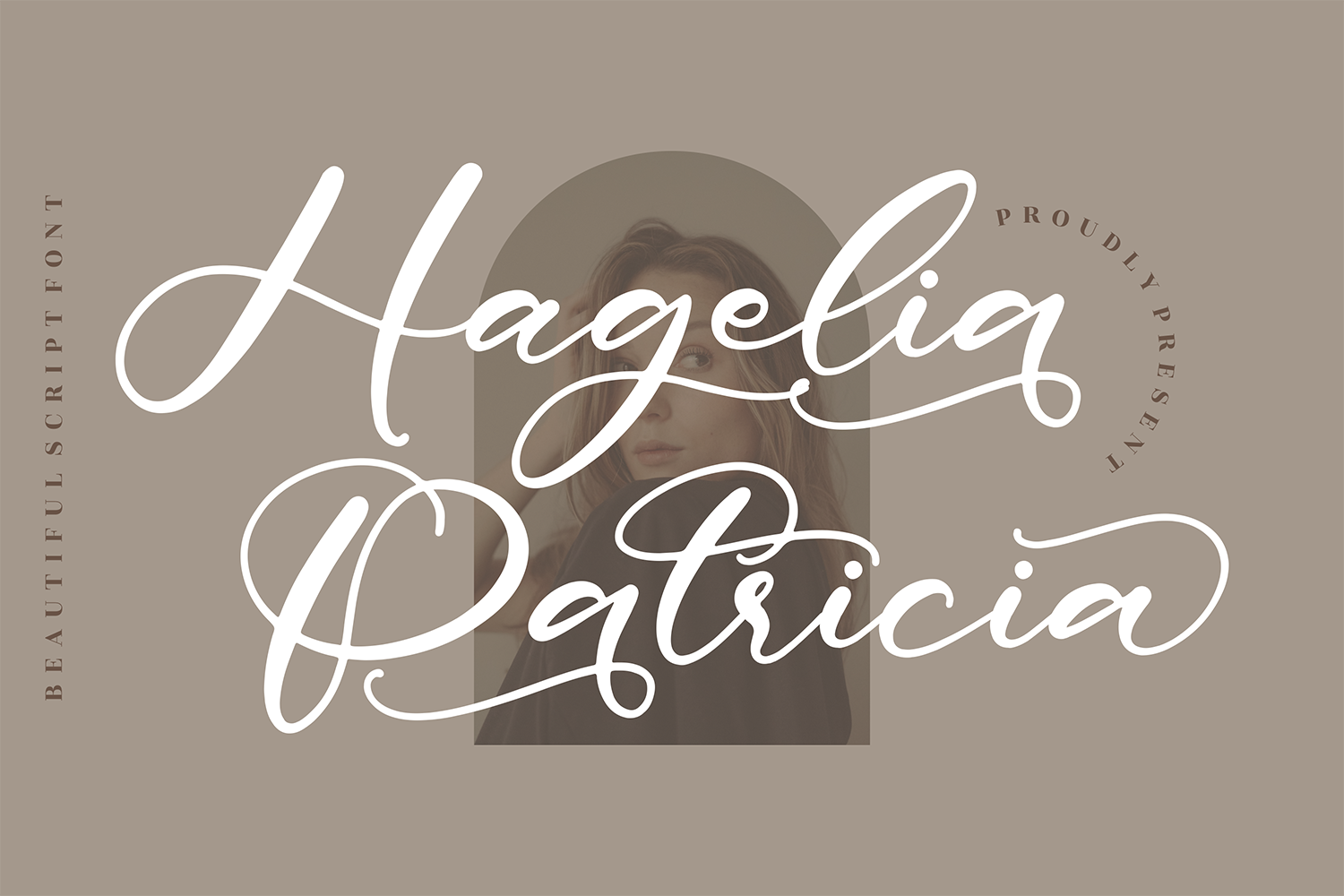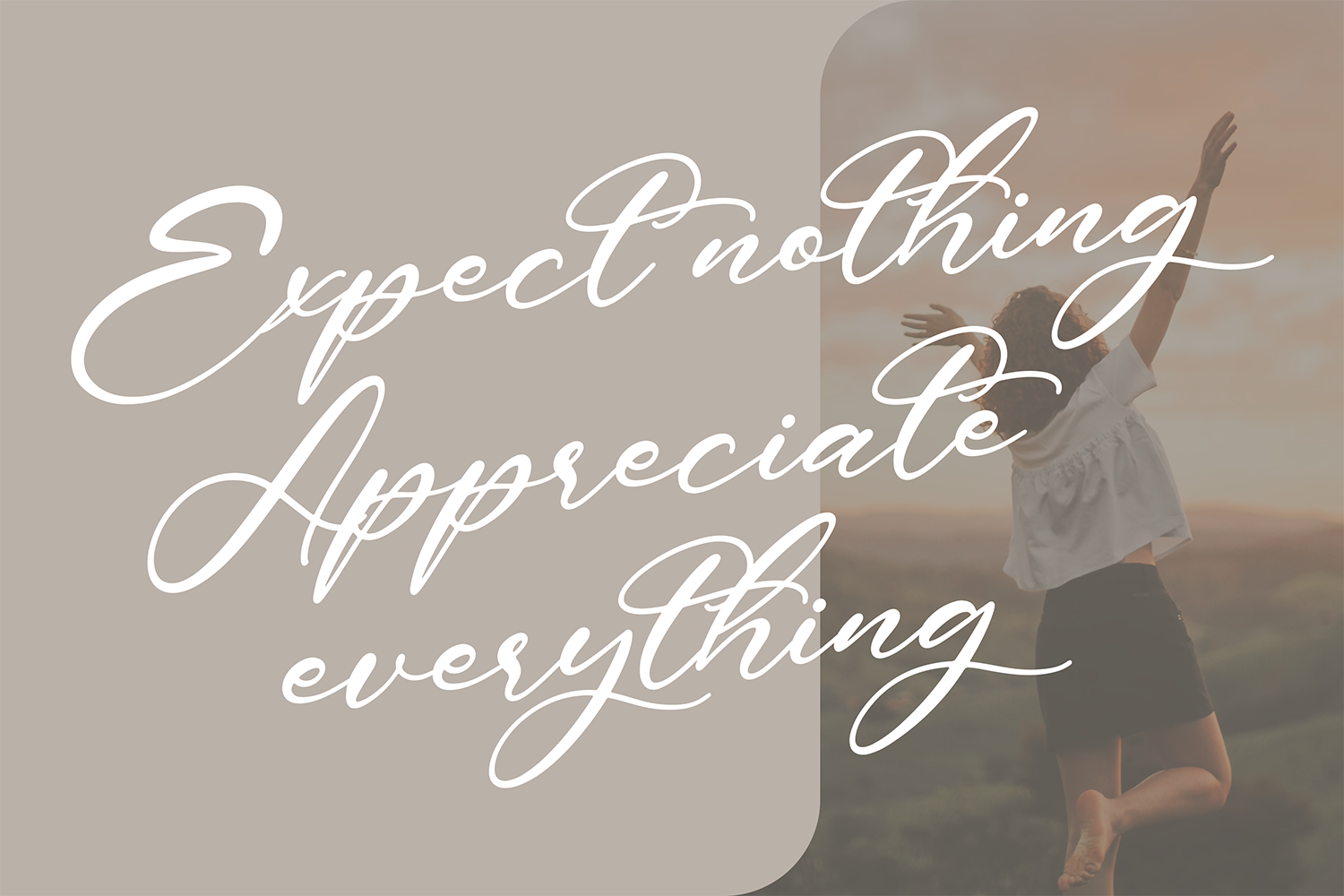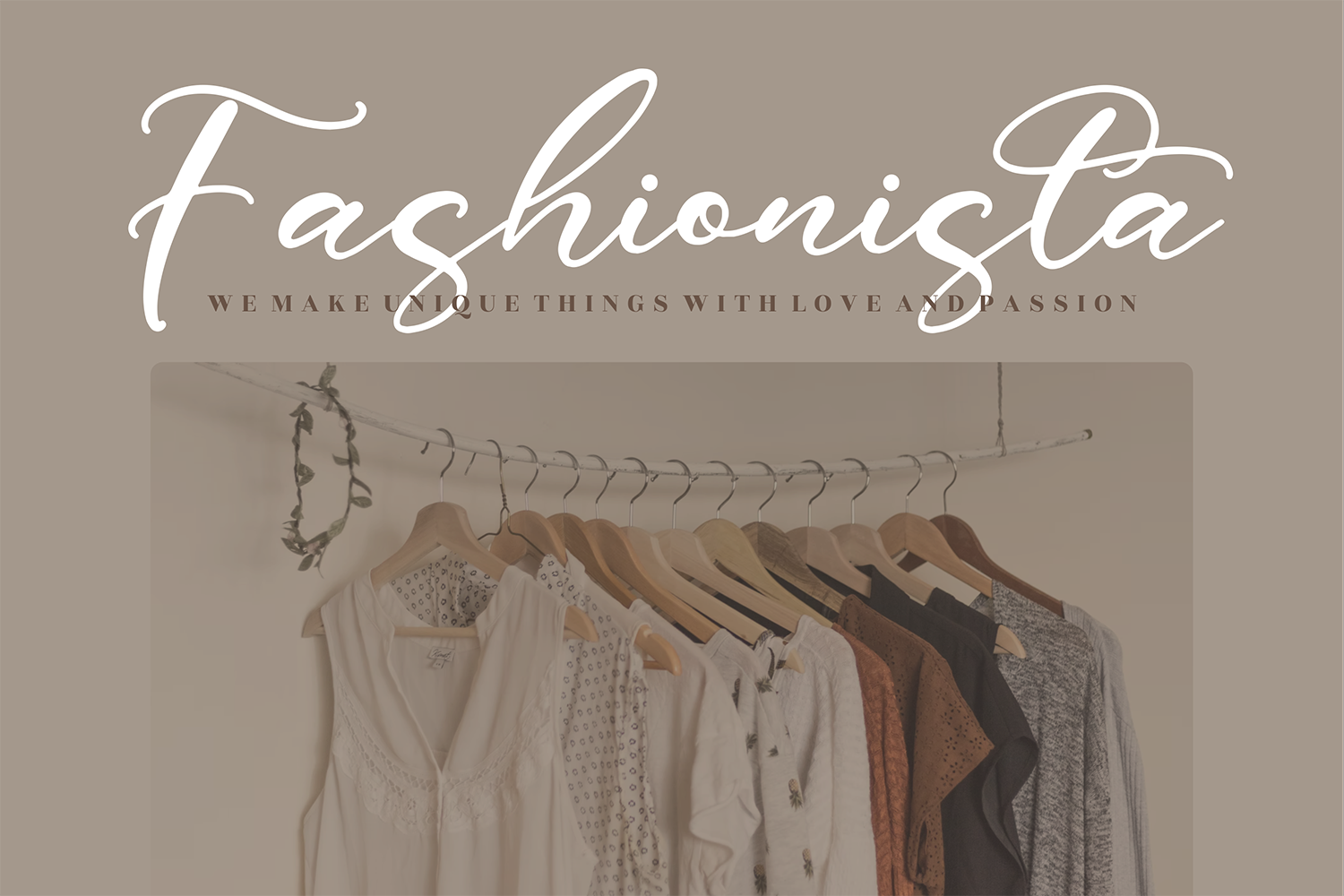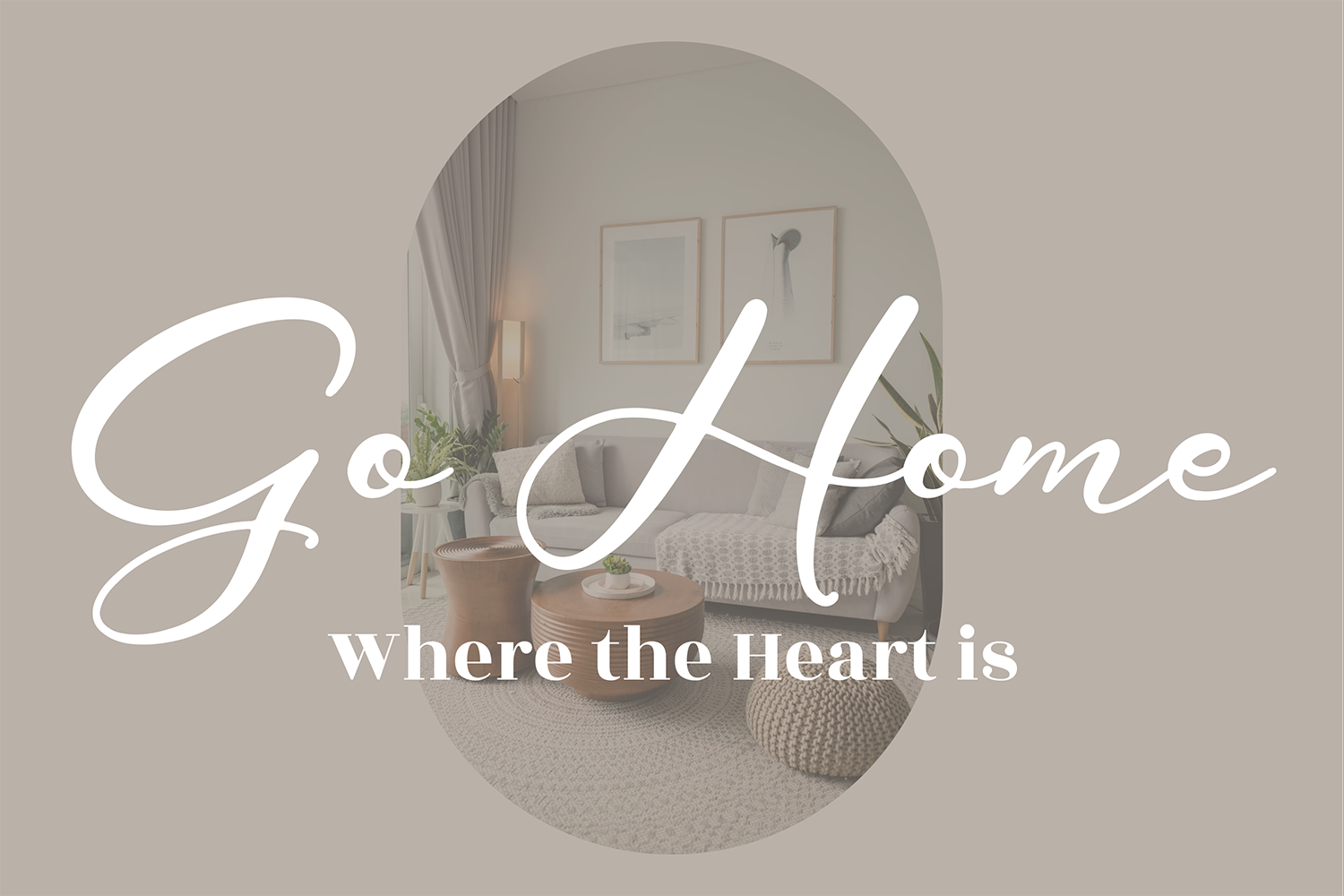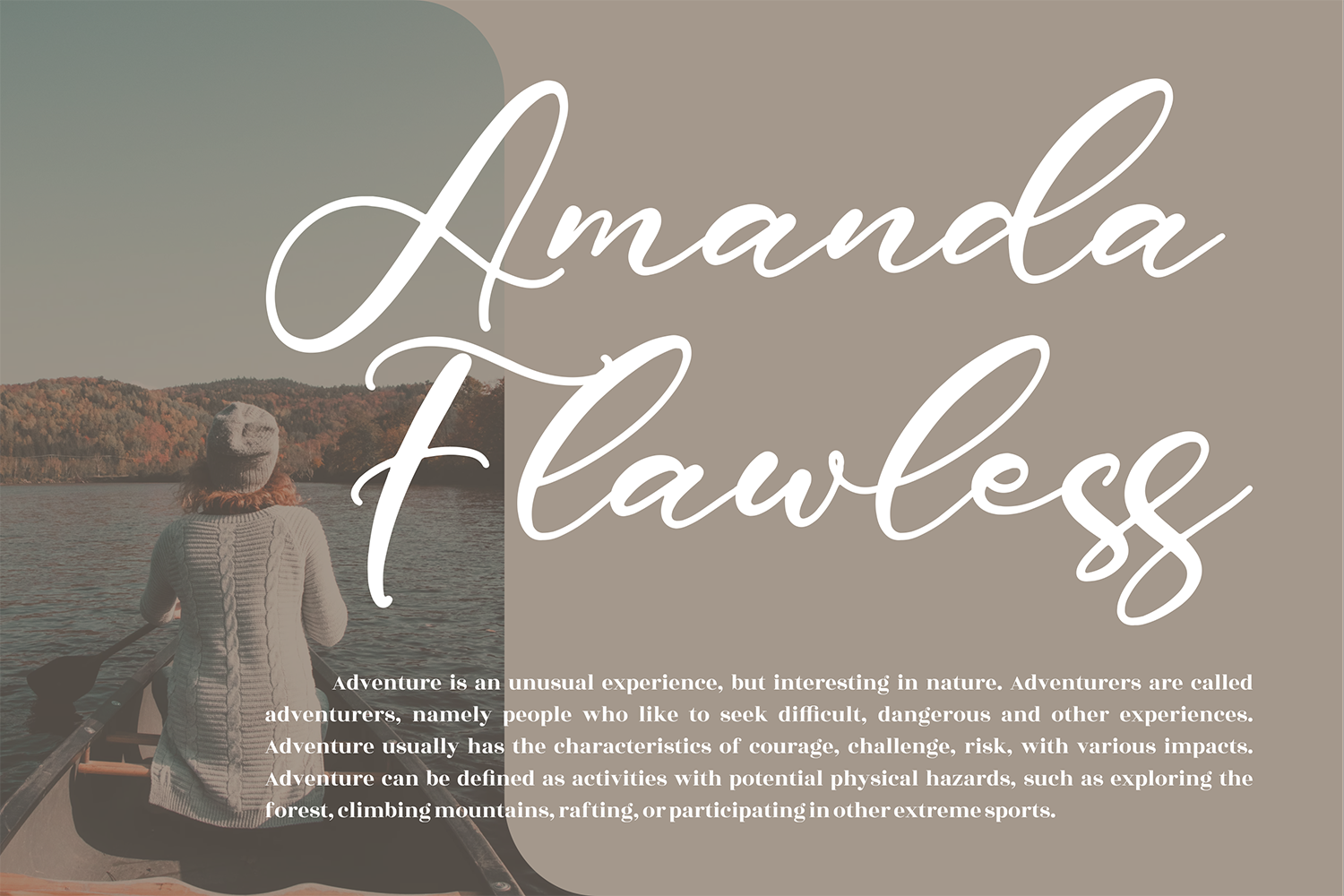
Hagelia Patricia Free Font
Hagelia Patricia Free Font is an interesting modern beautiful handwritten font that simulates detailed brush writing and is very suitable for creating various unique design projects that require a scripted font. These can be posters, wedding invitations, cards, branding, flyer prints, and more. If you wish to access more features and use them for commercial work please buy the full version.